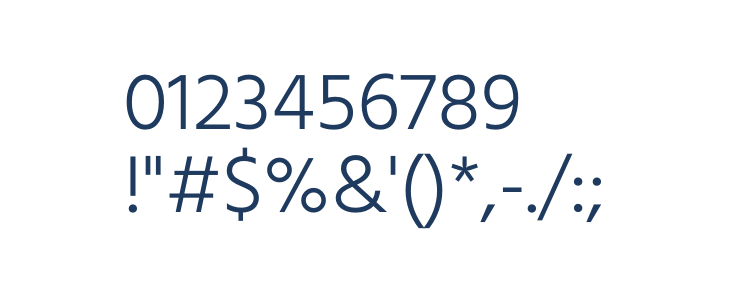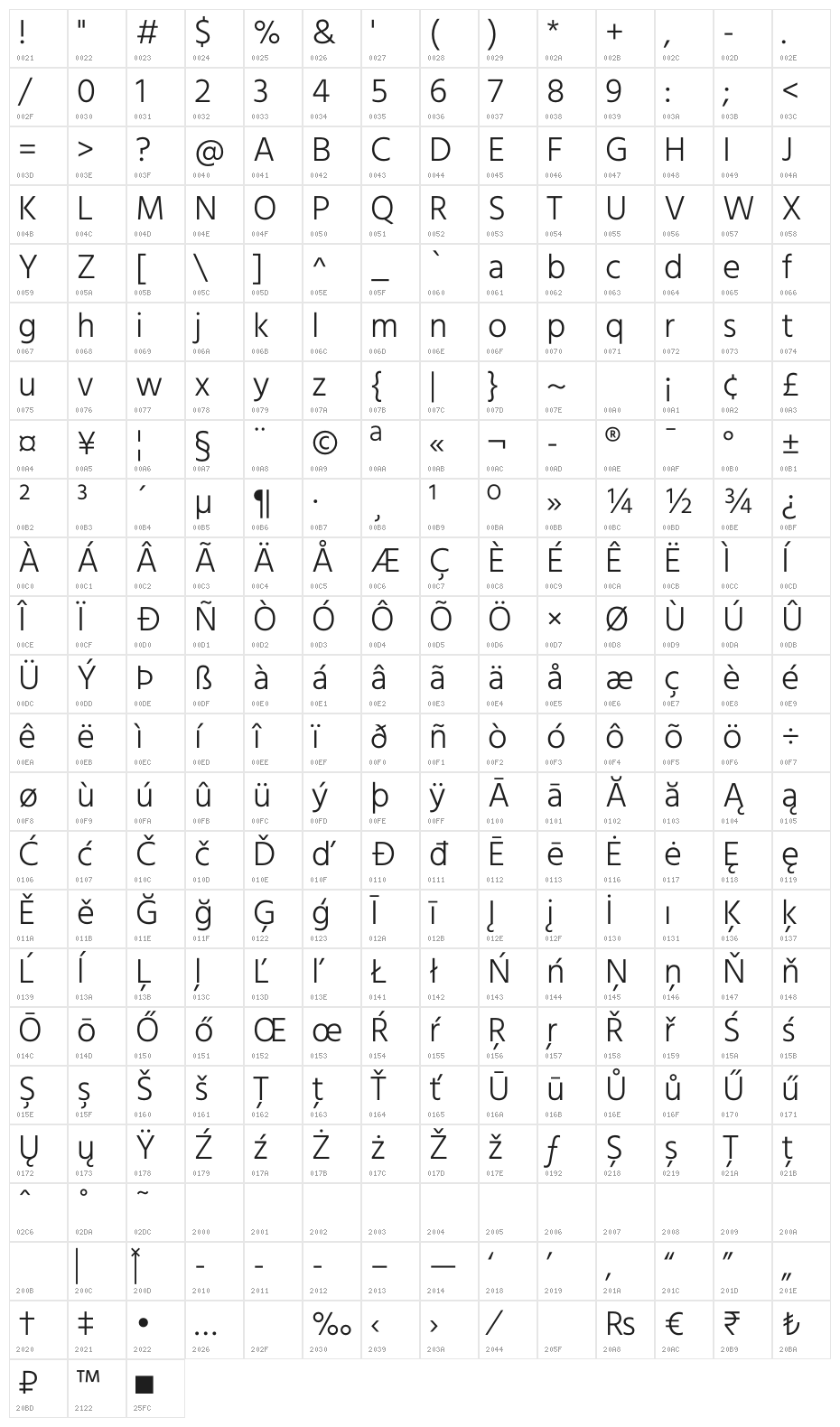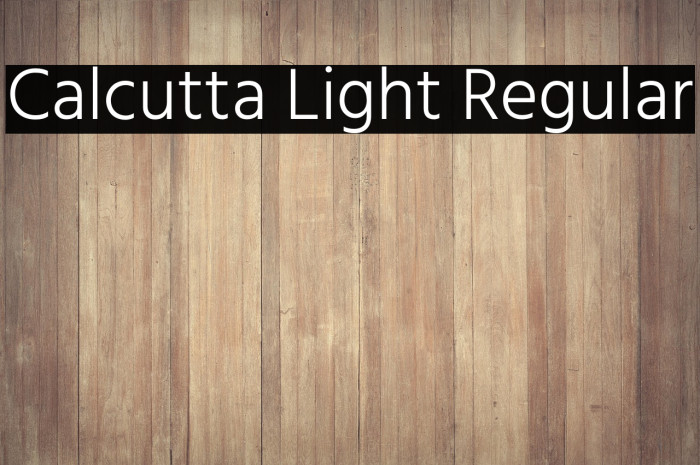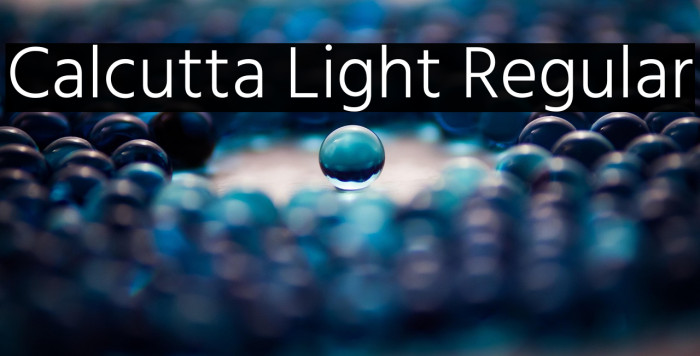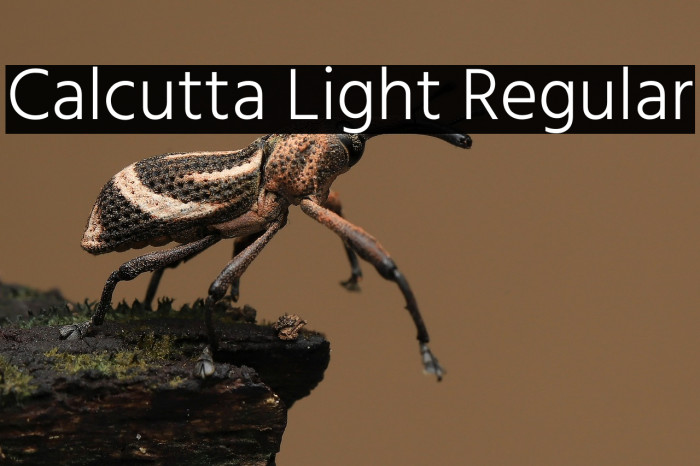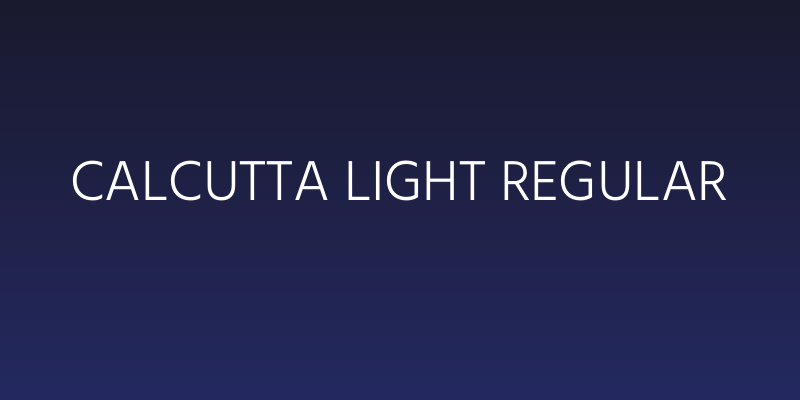
Calcutta Light Regular Font
Calcutta Light Regular Description
This font exhibits a clean and modern sans-serif style, characterized by its simplicity and clarity. The letterforms are uniform and geometric, with consistent stroke widths that contribute to a harmonious appearance. The uppercase and lowercase letters are well-proportioned, making it highly legible across various sizes. The numerals are straightforward and align well with the overall design, ensuring readability. Special characters are crafted with the same attention to detail, maintaining the font's cohesive look. Its minimalistic design makes it versatile for a wide range of applications.
Use CaseHeadlines, Body text, Logos
Proposed ProjectsIdeal for digital interfaces, corporate branding, editorial design, and signage.